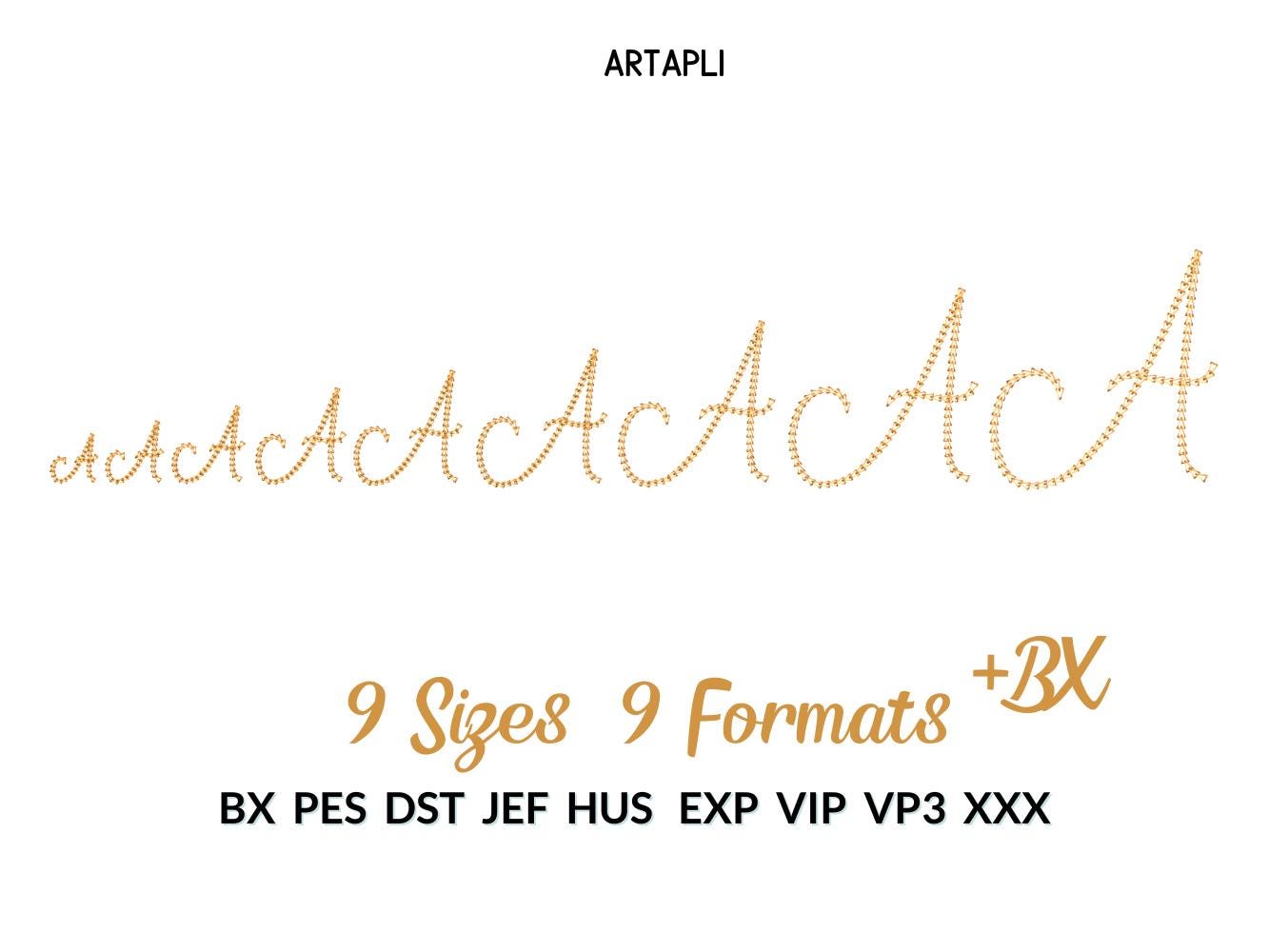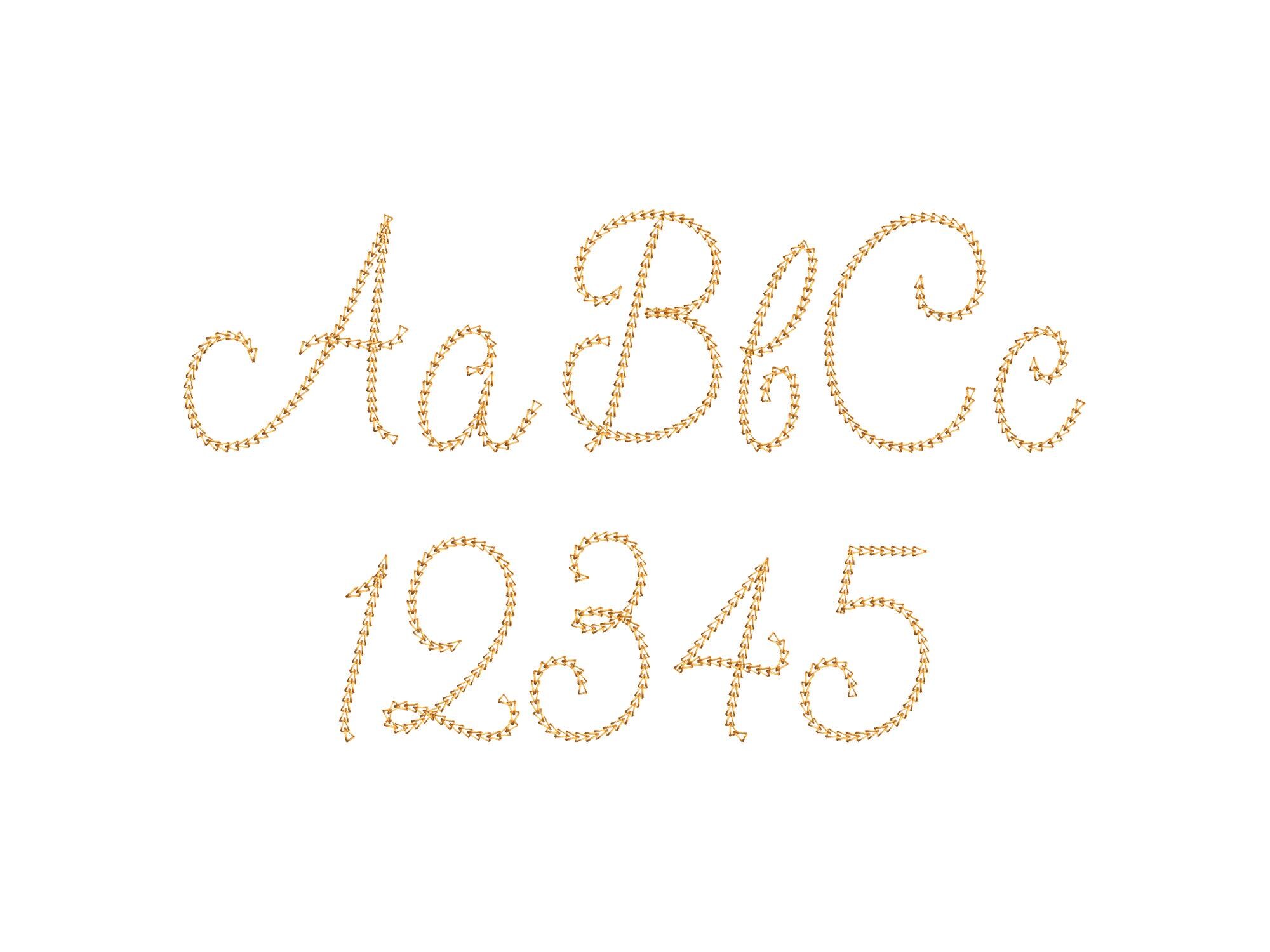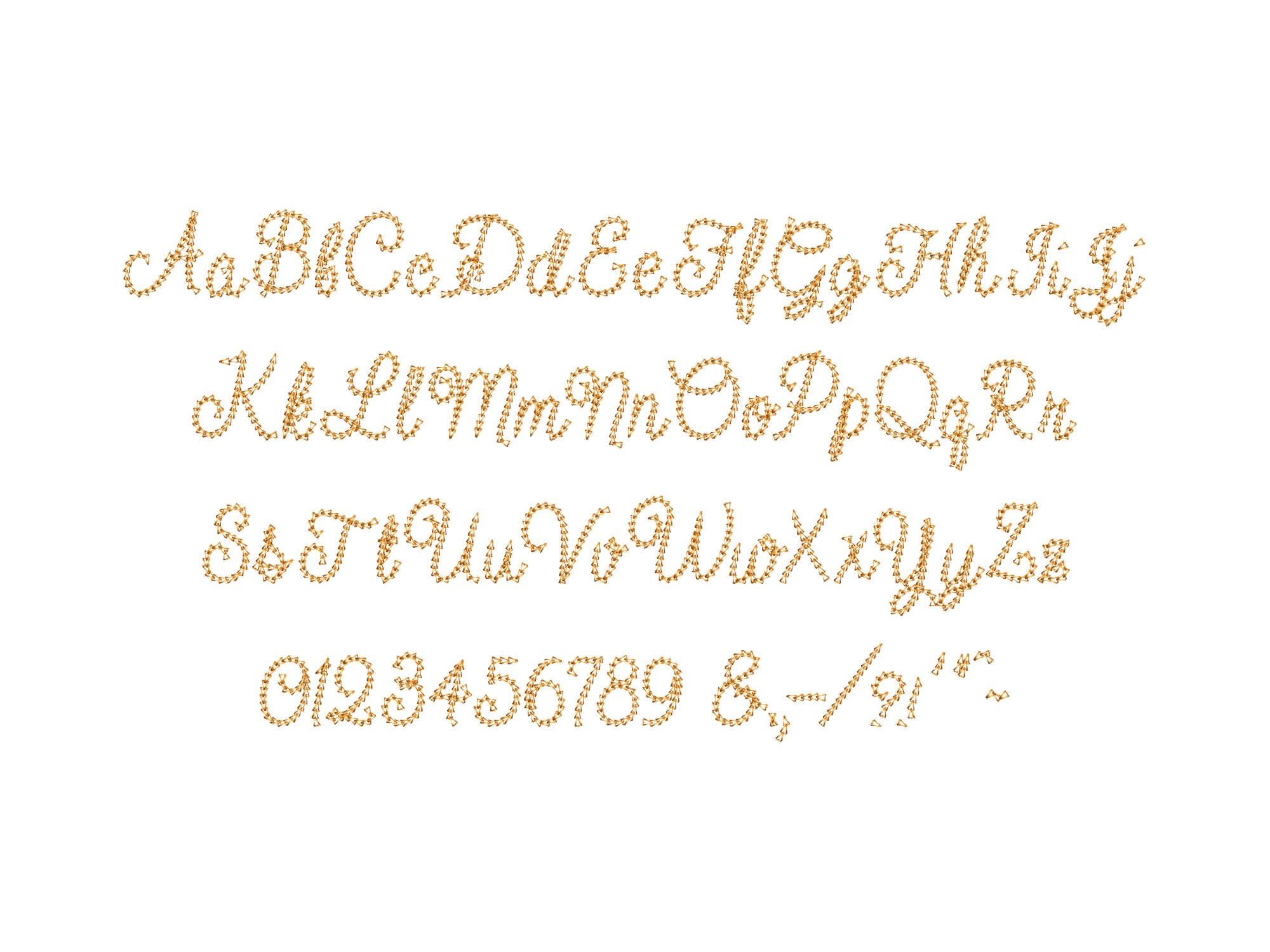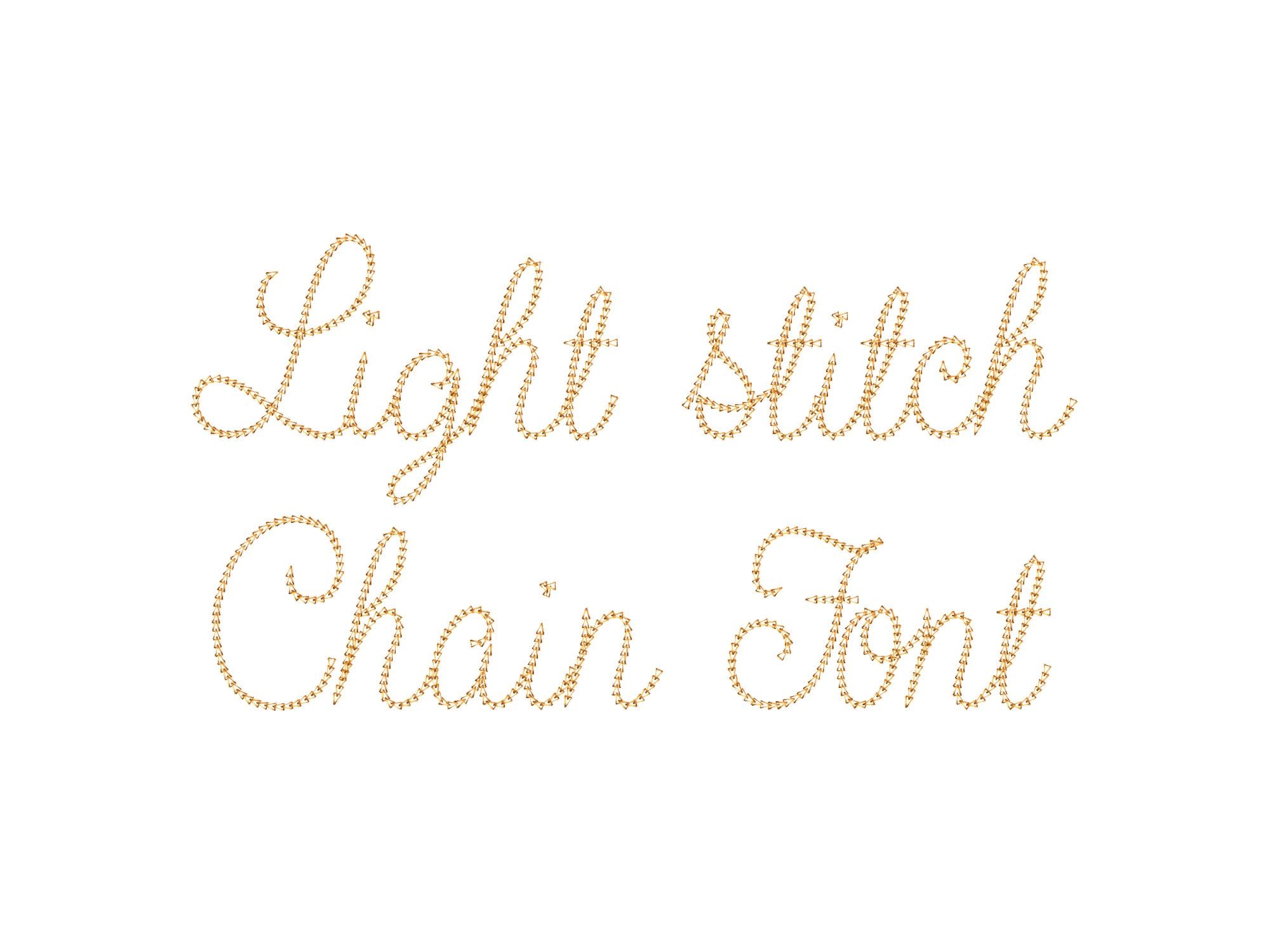
Light stitch Chain FONT cursive script Font alphabet machine embroidery designs many sizes 1 to 4.6 inch letters numbers and punctuation, and BX included
Whole alphabet Aa-Zz uppercase and lowercase letters, numbers 0-9, and punctuation.
Stitch wasn’t light. No different than a regular chain stitch.